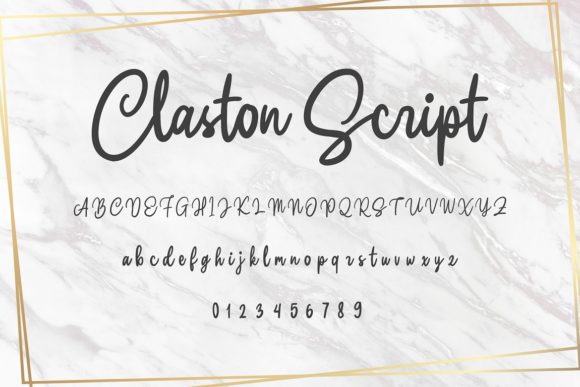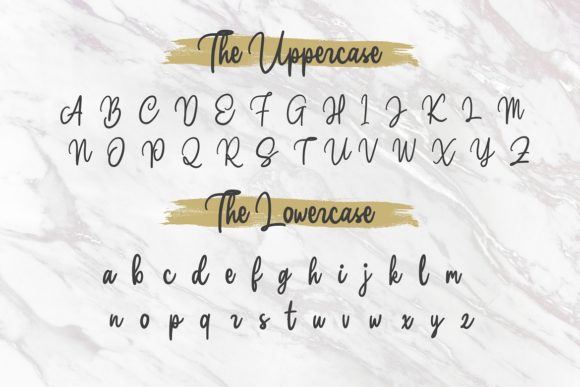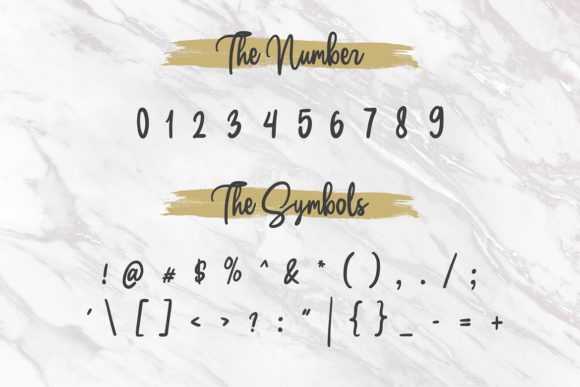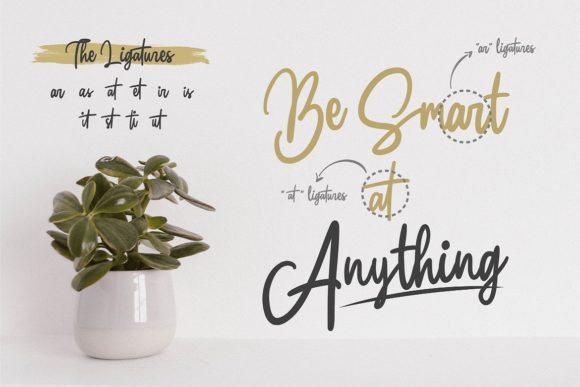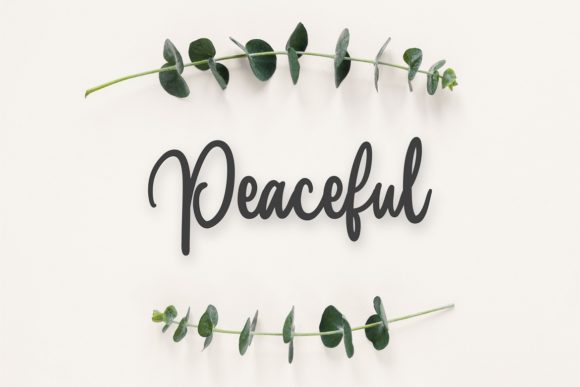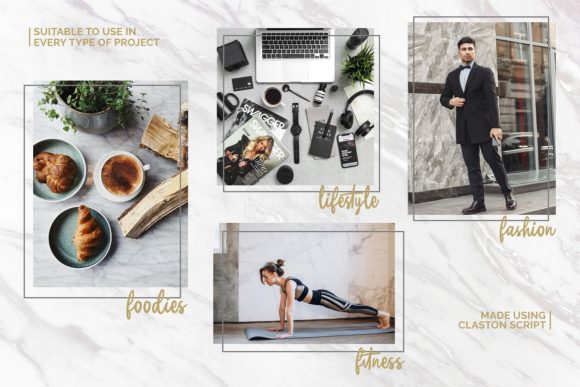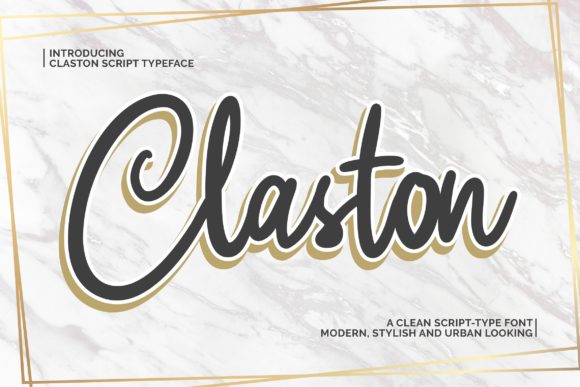
Discover the Charm of Claston Font: Elevate Your Designs with Elegance
In the world of typography, few fonts manage to strike a balance between charm and elegance as effortlessly as Claston Font. This beautiful, handwritten font has captured the hearts of designers and crafters alike, and it’s easy to see why. With its unique blend of sophistication and playfulness, Claston Font is the perfect addition to any design project that requires a touch of personality and refinement.
The Versatility of Claston Font
One of the standout features of Claston Font is its incredible versatility. Whether you’re working on a wedding invitation, a thank you card, a quote, or a logo, this font is sure to impress. Its elegant, cursive strokes and carefully crafted letterforms make it an excellent choice for a wide range of design applications, from formal events to business branding.
Imagine using Claston Font to create stunning wedding invitations that set the tone for a fairytale-like celebration. The font’s delicate, handwritten feel adds a touch of romance and whimsy, making it perfect for couples who want to make their special day truly unforgettable. Similarly, Claston Font’s elegant charm makes it an excellent choice for business cards, logos, and other corporate branding materials, where it’s essential to make a sophisticated and professional impression.
Why Designers and Crafters Love Claston Font
So, what makes Claston Font so beloved among designers and crafters? For starters, its unique, handwritten aesthetic adds a level of personality and character to any design project. Unlike more traditional, serif fonts, Claston Font’s elegant cursive strokes and flourishes bring a sense of warmth and approachability to your designs.
Another reason designers and crafters adore Claston Font is its ease of use. Whether you’re a seasoned pro or just starting out, this font is incredibly easy to work with, and its clean, well-spaced letterforms make it simple to pair with other fonts and design elements.
Tips for Using Claston Font in Your Designs
- Pair it with contrasting fonts: Claston Font’s elegant, cursive strokes make it a great choice for headlines and titles. Pair it with a clean, sans-serif font for body text to create a beautiful contrast that adds visual interest to your design.
- Experiment with colors: Claston Font looks stunning in a range of colors, from soft pastels to rich jewel tones. Don’t be afraid to experiment with different hues to find the perfect match for your design.
- Add flourishes and embellishments: Claston Font’s delicate, handwritten feel makes it the perfect choice for designs that incorporate flourishes and embellishments. Consider adding a few strategically-placed swashes or ornaments to give your design an extra touch of elegance.
In conclusion, Claston Font is a true gem in the world of typography. Its unique blend of charm and elegance makes it the perfect choice for designers and crafters who want to add a touch of personality and sophistication to their designs. Whether you’re working on a wedding invitation, a business card, or a logo, Claston Font is sure to impress. So why wait? Discover the charm of Claston Font for yourself and elevate your designs to new heights of elegance and refinement.
With its versatility, ease of use, and stunning aesthetic, Claston Font is an excellent addition to any designer’s toolkit. So go ahead, get creative, and see the amazing things you can do with this beautiful, handwritten font!